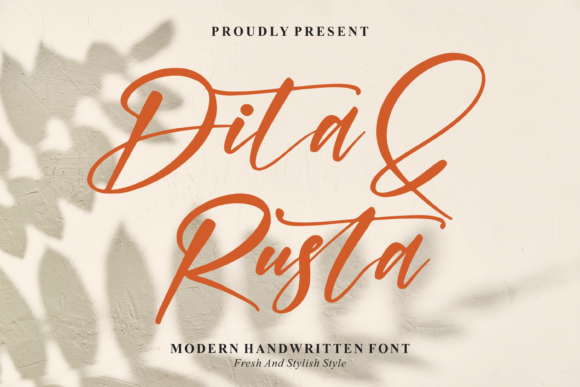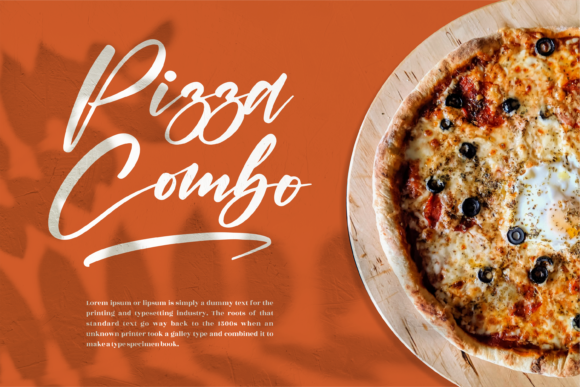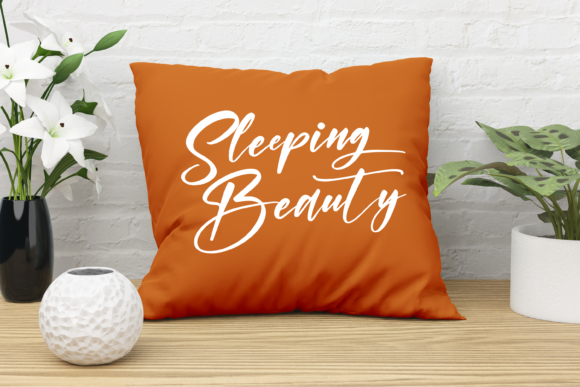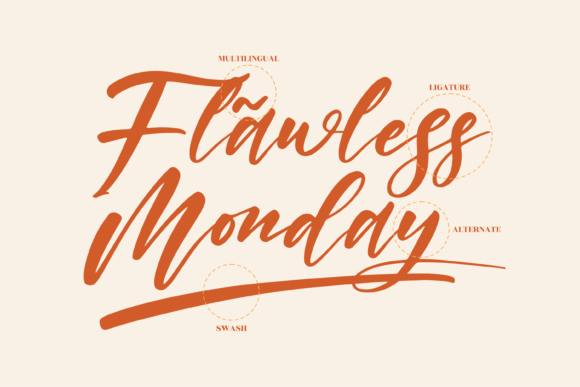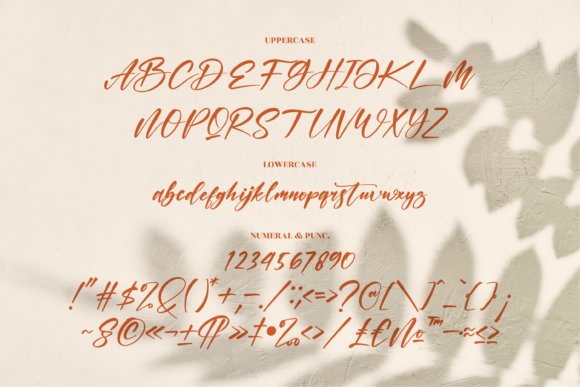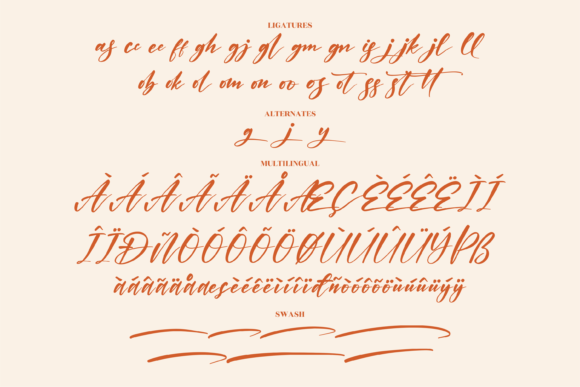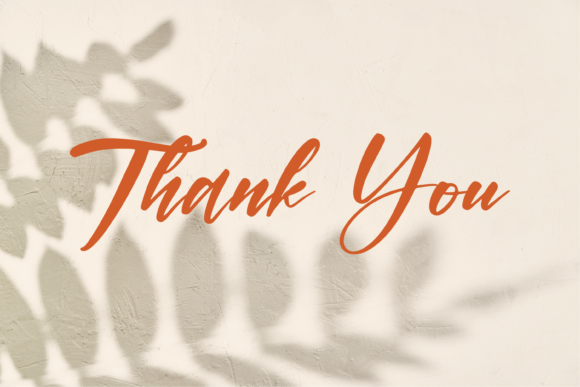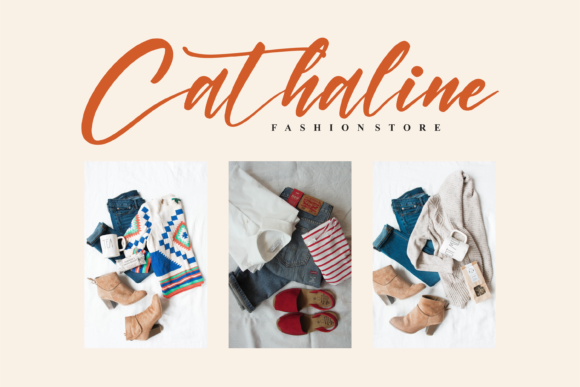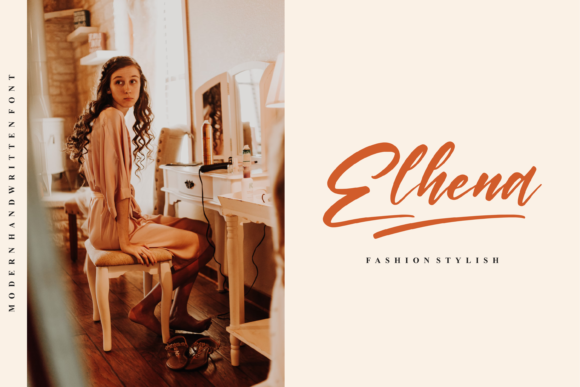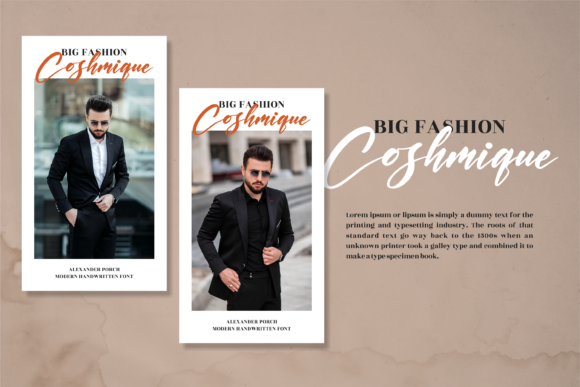
Dita & Rusta Font
About Dita & Rusta Font
Dita & Rusta is an enchanting handwritten font. This versatile script font has a wide spectrum of applications ranging from greeting cards to headlines and is guaranteed to add a romantic feel to your next project.
Dita & Rusta is PUA encoded which means you can access all glyphs and swashes with ease!